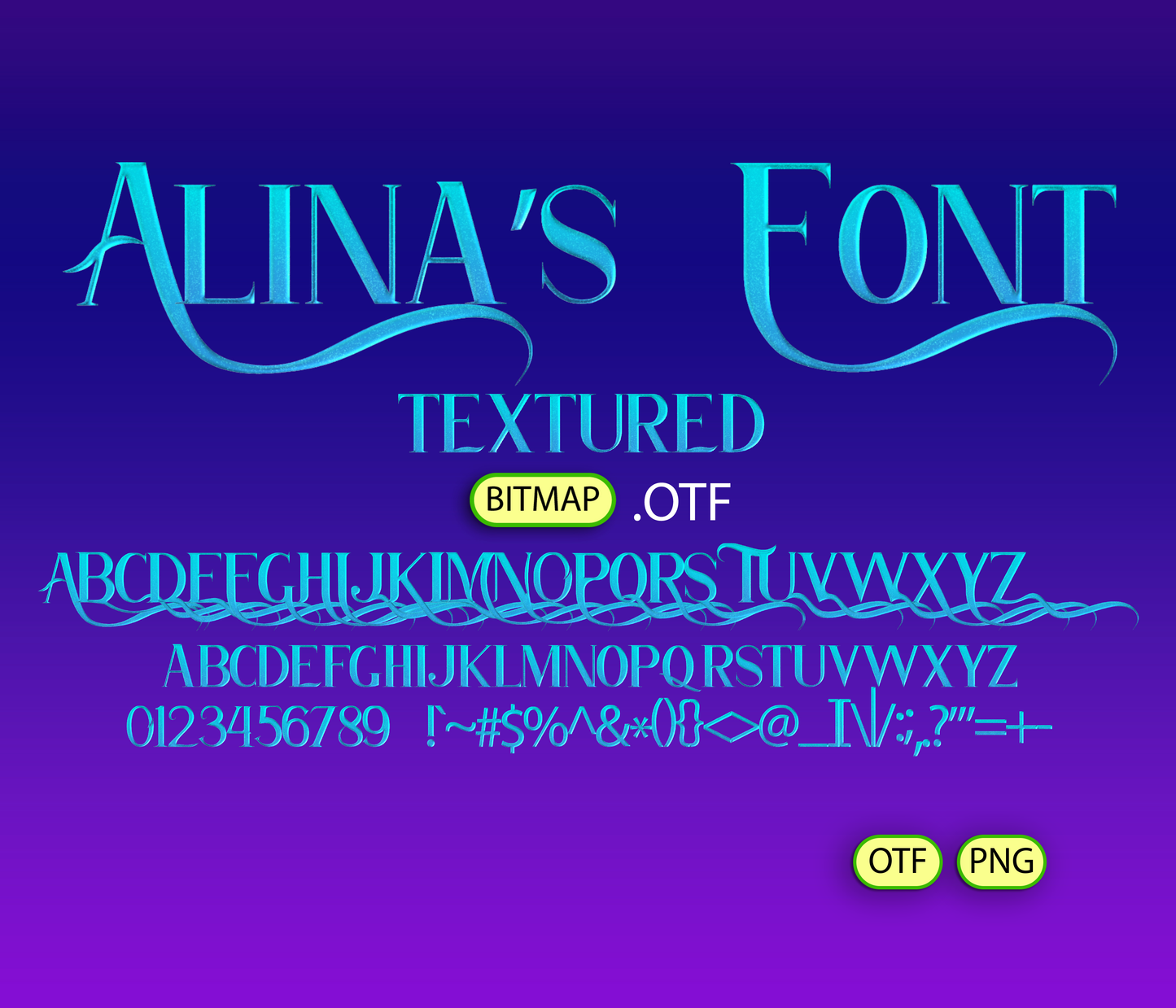
Sea Princess Font Textured
Dive into a world of undersea enchantment with our Sea Princess Textured Font. This one-of-a-kind design captures the whimsy and wonder of the ocean depths, making it the perfect artistic choice for a variety of projects. Whether you're crafting with a Cricut machine or looking to elevate your print on demand merchandise, this textured font provides an element of oceanic elegance that sets your work apart.
Designed with intricate details and colors reminiscent of the sea, it's a natural fit for custom t-shirts, tote bags, and even home decor. And if you're planning a mermaid-themed celebration, this font truly shines. Transform cake toppers, birthday invitations, and party favors into treasures worthy of a sea princess—making any event a hit for your girl or daughter.